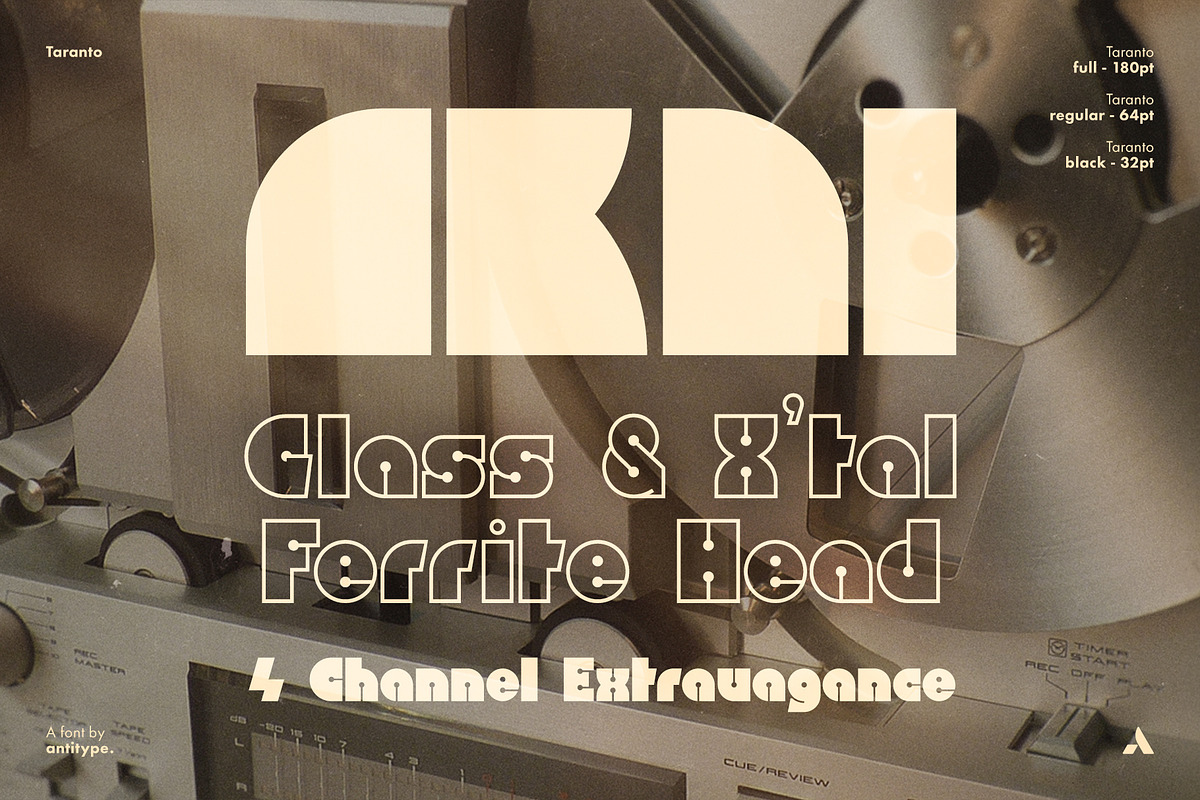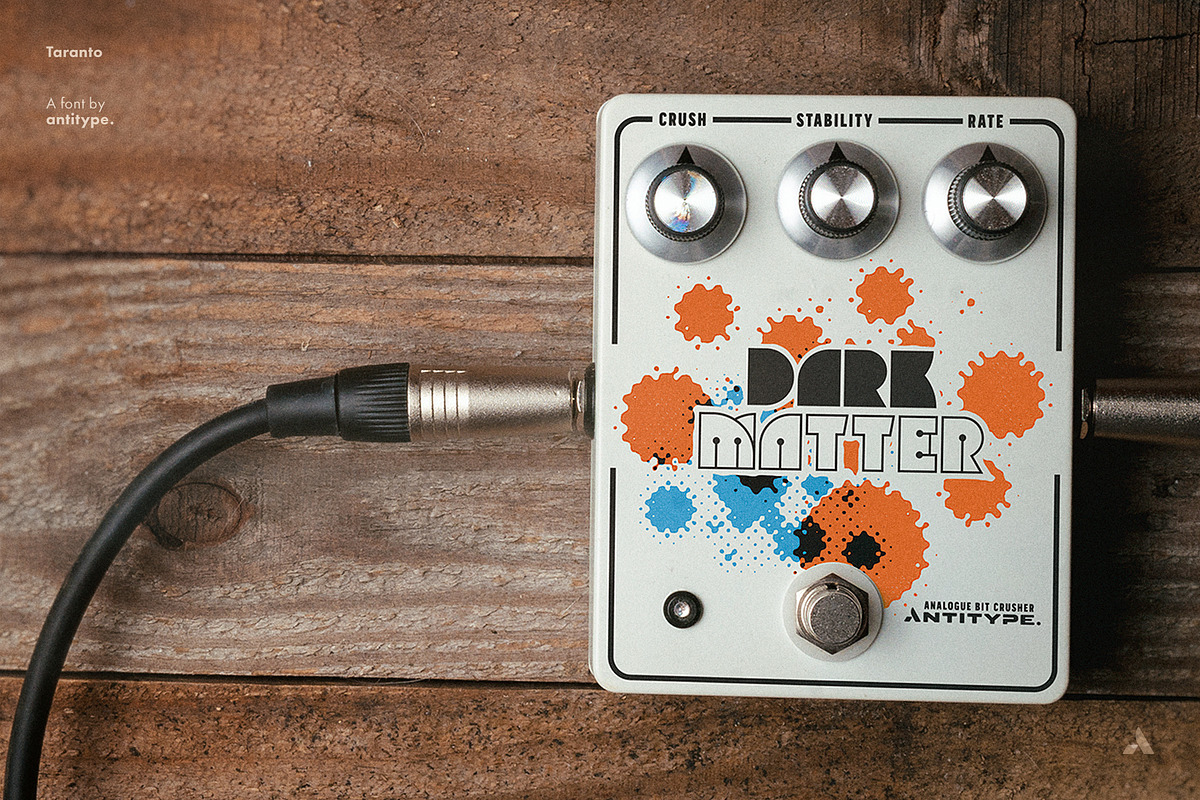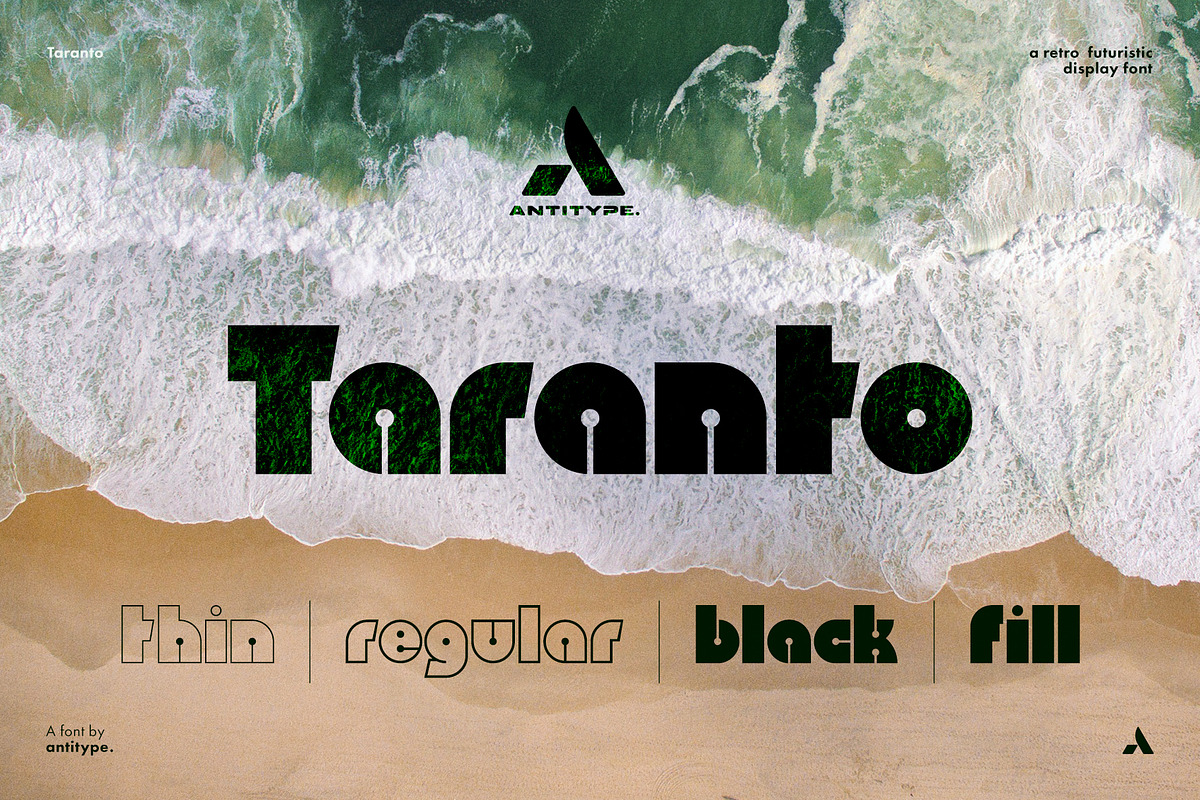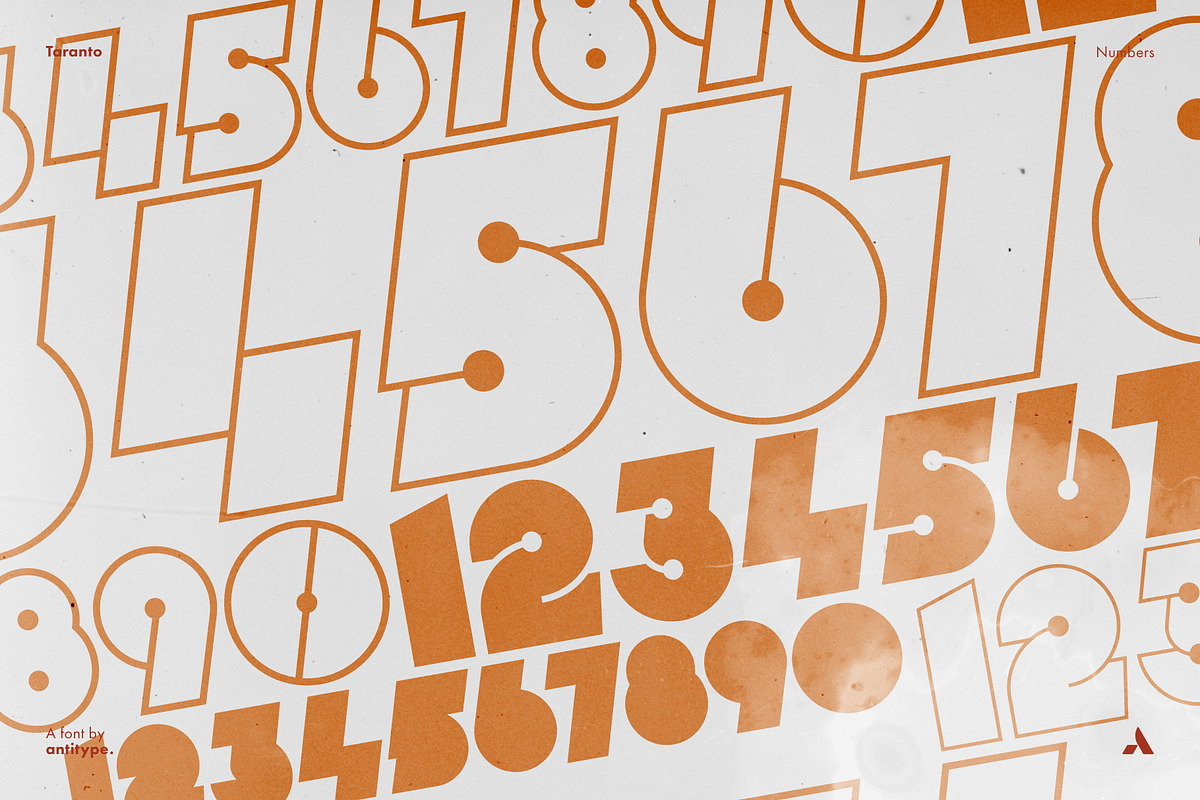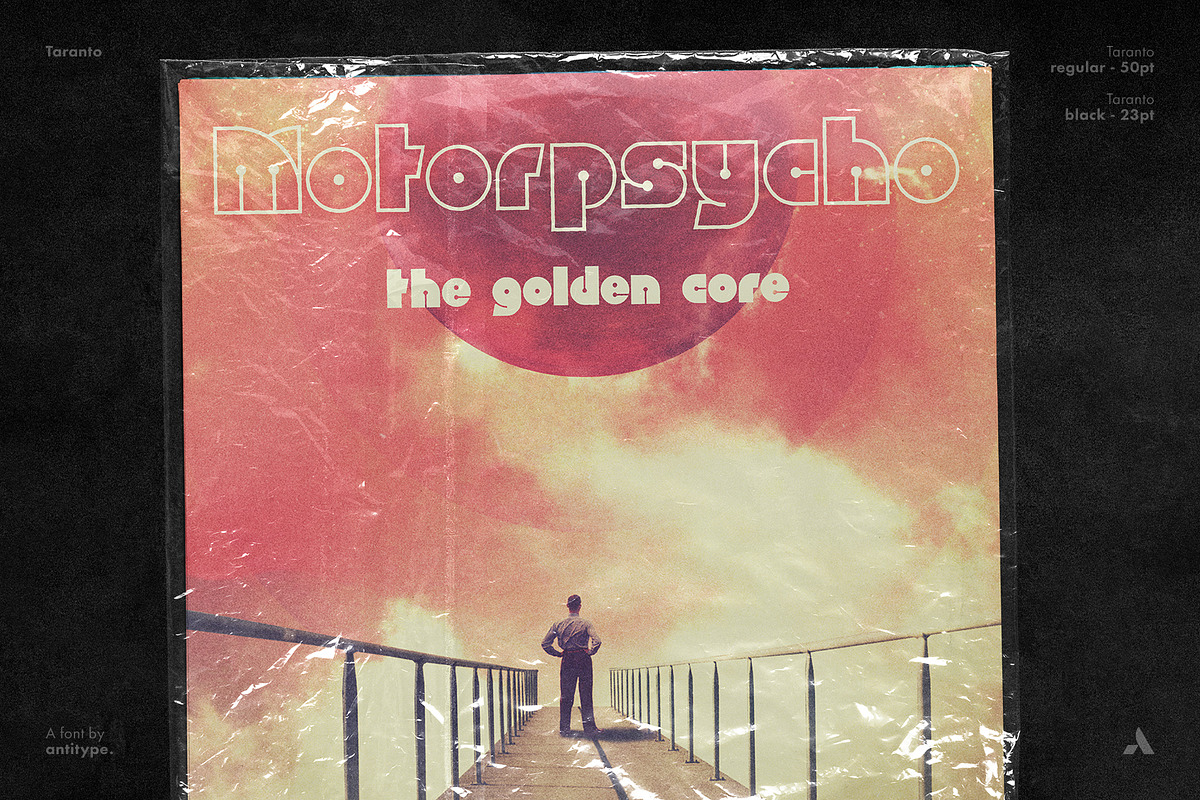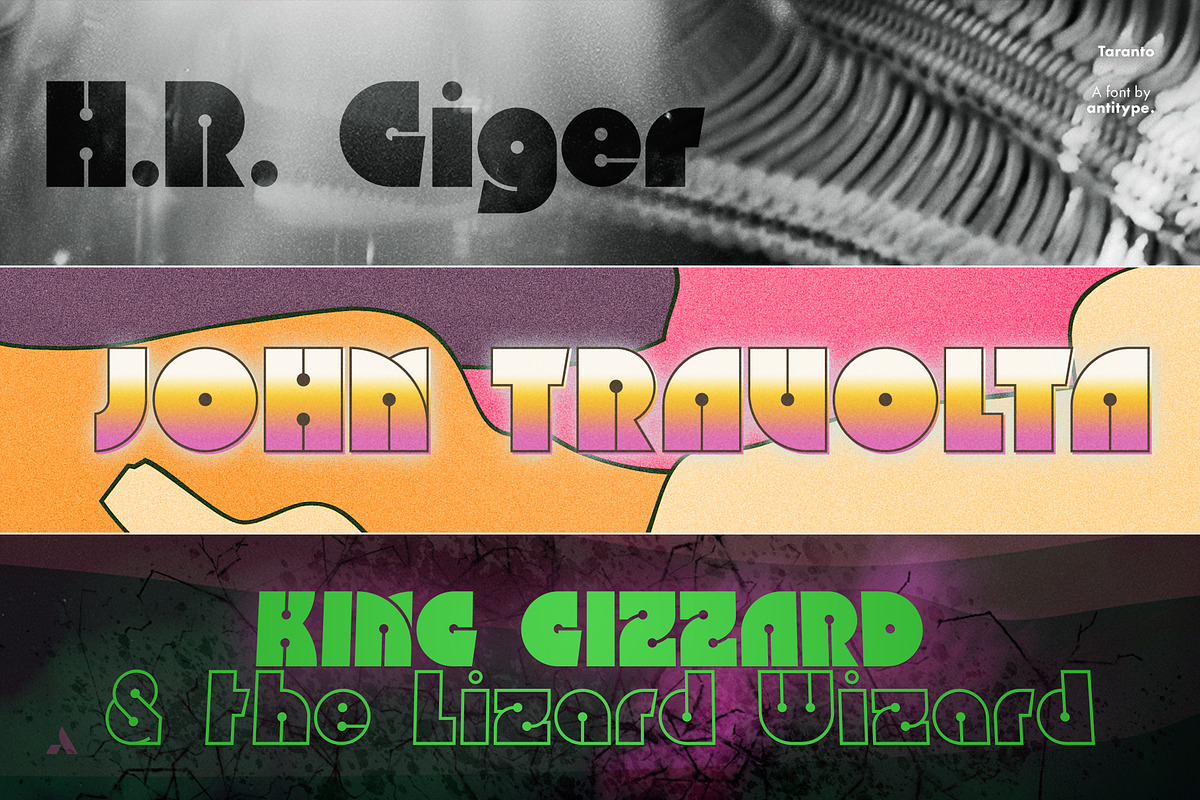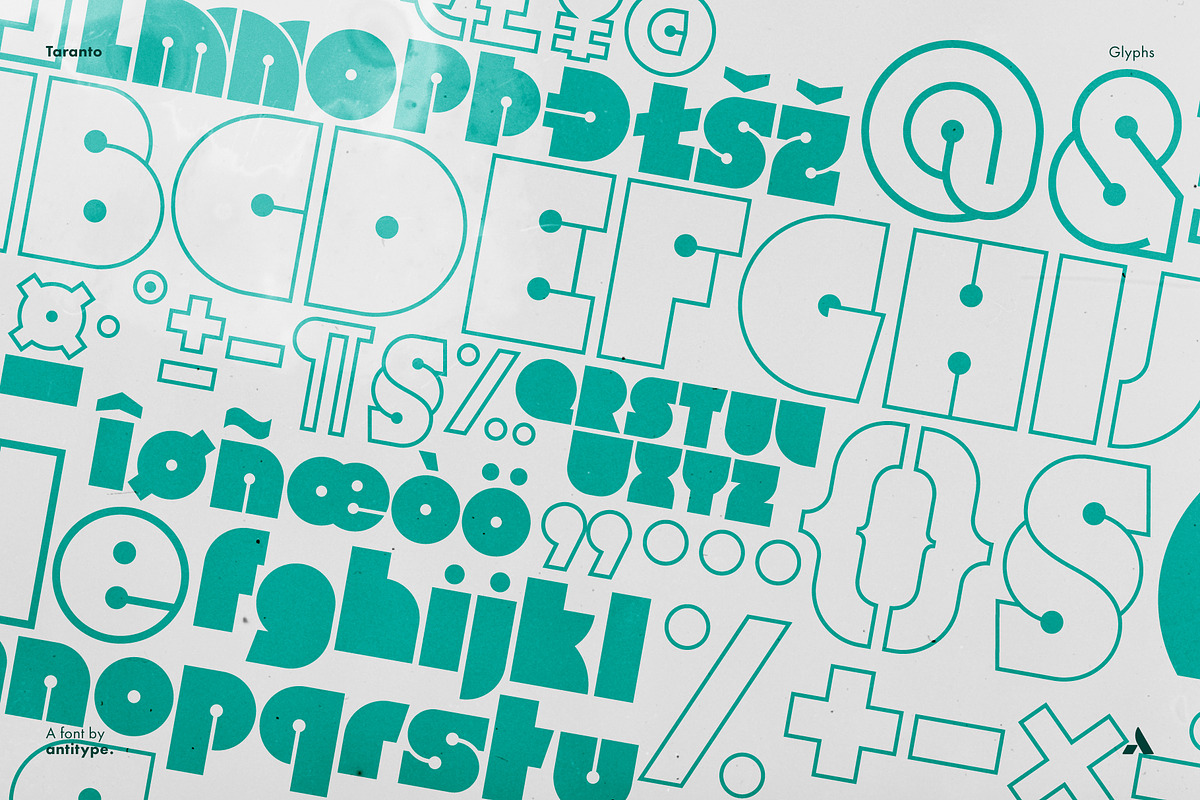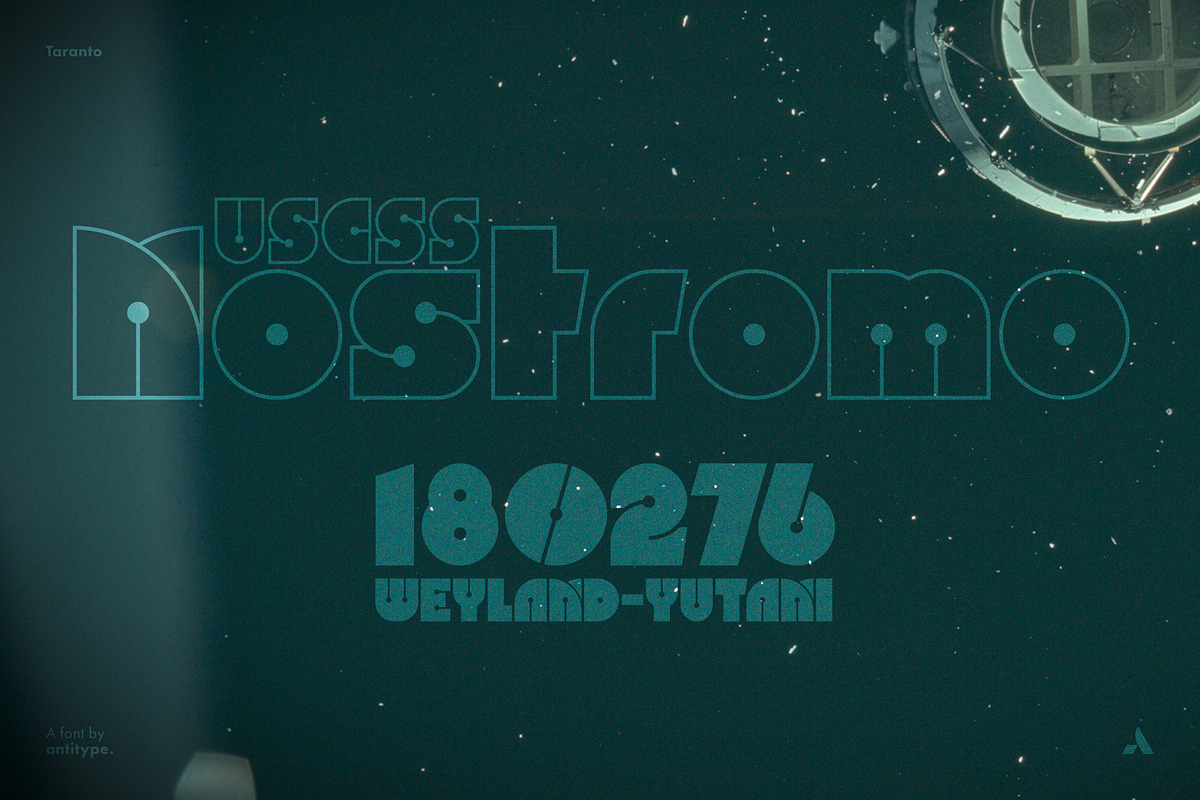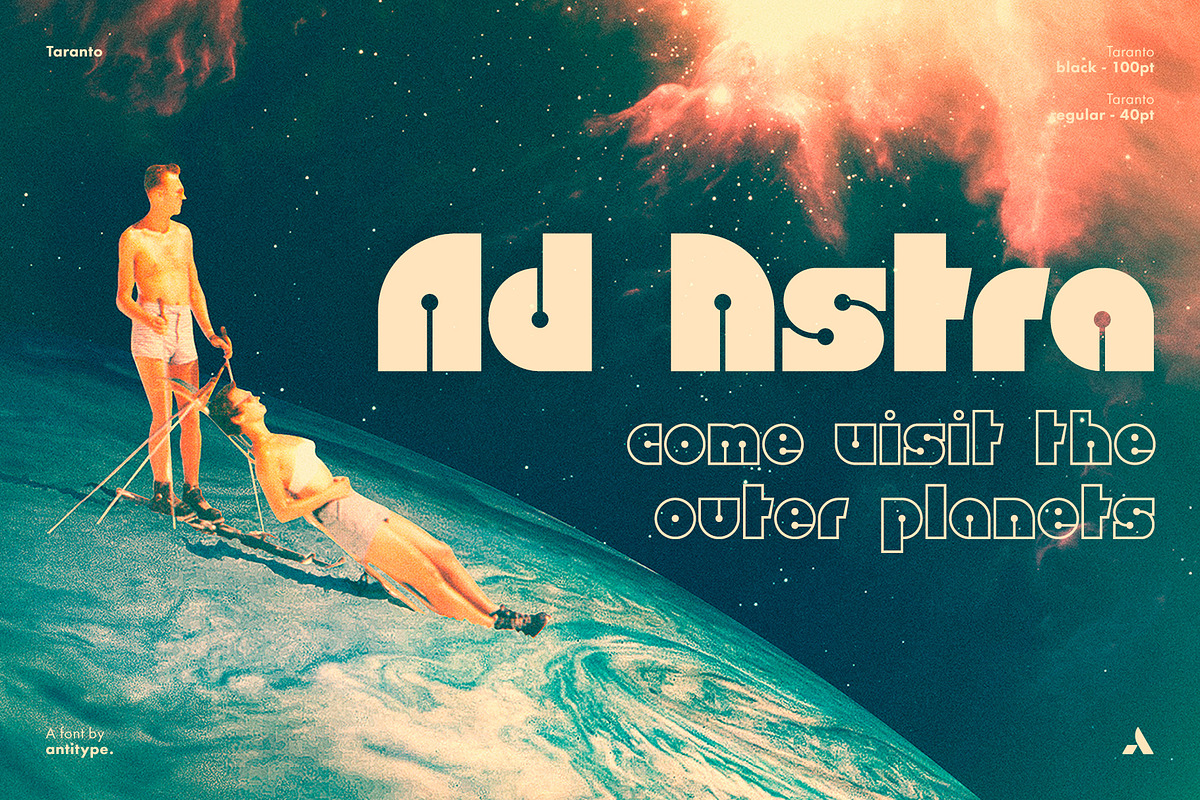
Taranto
Taranto was inspired by the typeface Domino by J. C. & M. Demarchi (published by Mecanorma in 1973). At its core, it follows the design language of Domino, but goes much further than its source of inspiration.
The Taranto font family consists of 4 individual fonts (Thin, Regular, Black and Fill). Each font contains a glyph set of about 240 glyphs (Western European character set) and also contains alternates for some characters. Taranto Fill is designed as an underlay for the regular and thin cut. but also works fantastic as a very bold standalone.